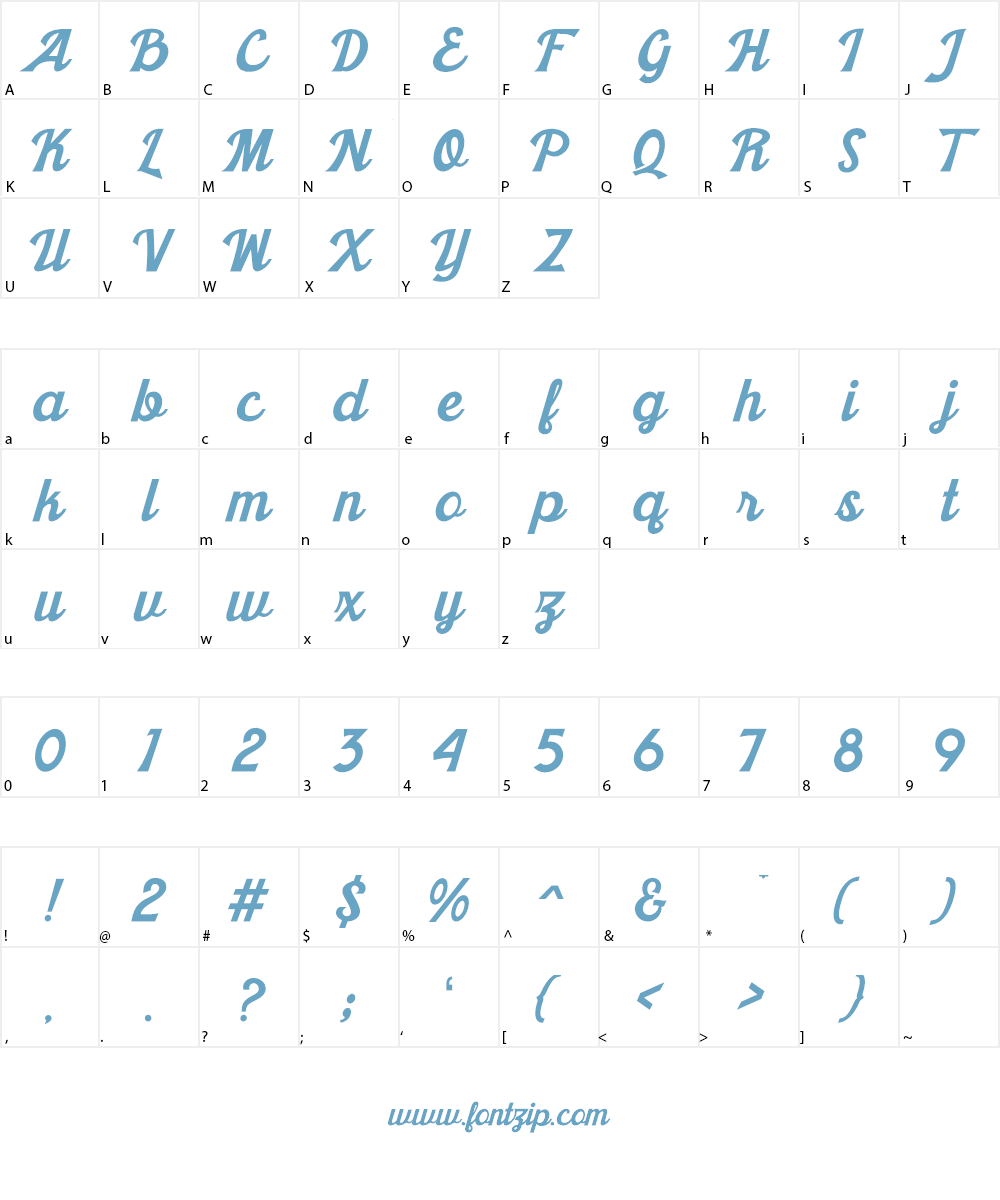
Khadija is bold and clean retro script font.
Can be used for creating Logotype, Poster, T-Shirt Design and various design project for web or printing.
Contains almost 380 glyphs with OpenType Features; Stylistic Alternate, Conextual lternte, Standard Ligature and many more.